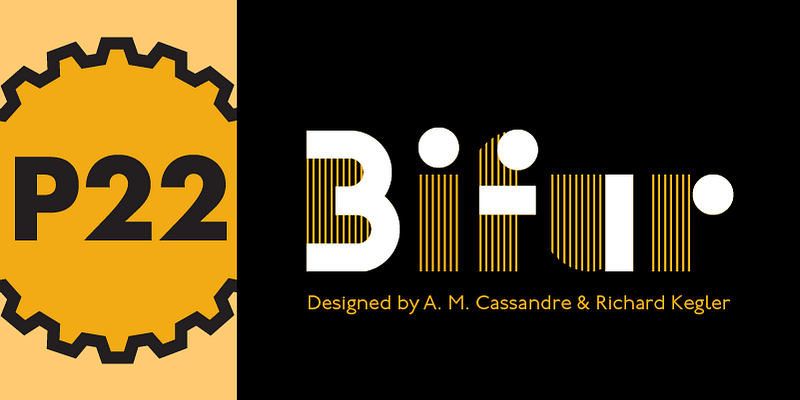
P22 Bifur Font Free Download is a distinctive and artistic typeface with a bold, geometric design. Inspired by early 20th-century modernist styles, it features sharp lines and unique letterforms that make it ideal for creative projects, such as posters, headlines, logos, and any design that needs a striking visual impact.
P22 Bifur Font works particularly well for large display text, offering both style and legibility. It integrates seamlessly with design tools like Adobe Illustrator, Photoshop, Figma, and Canva, making it suitable for both digital and print projects.